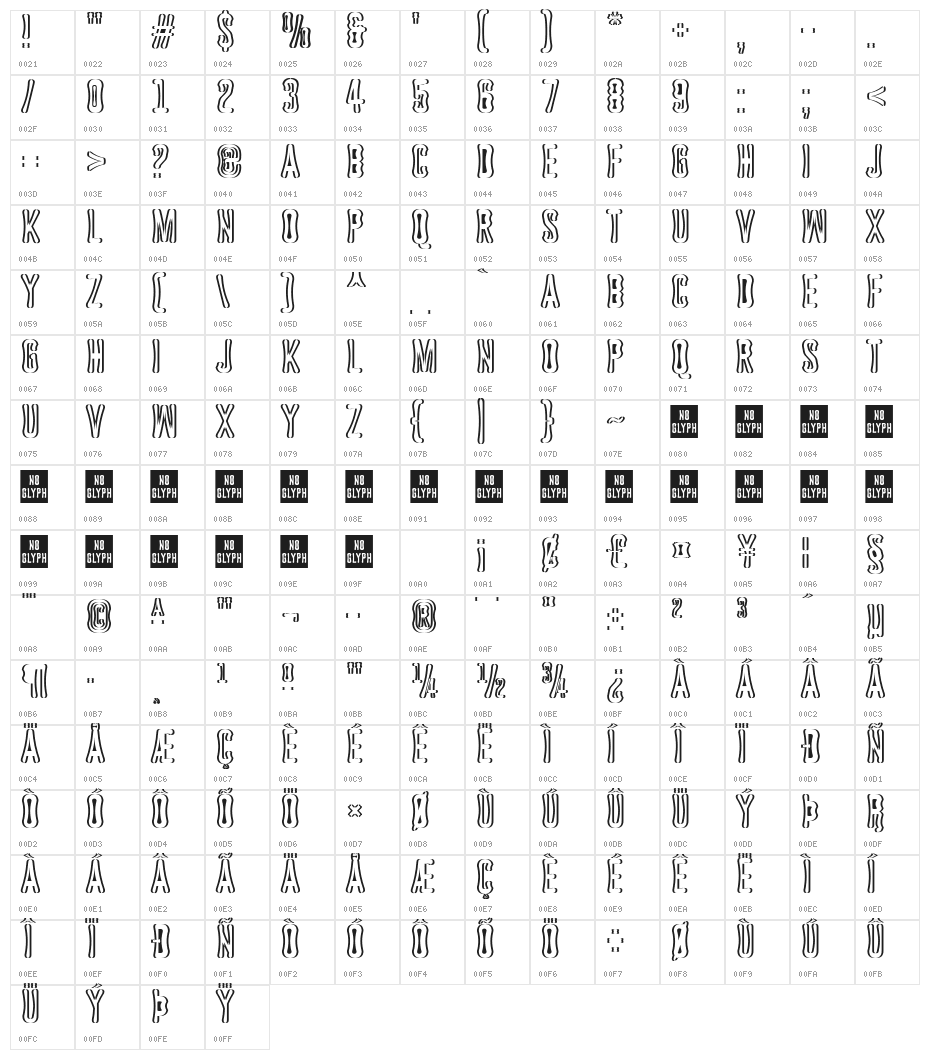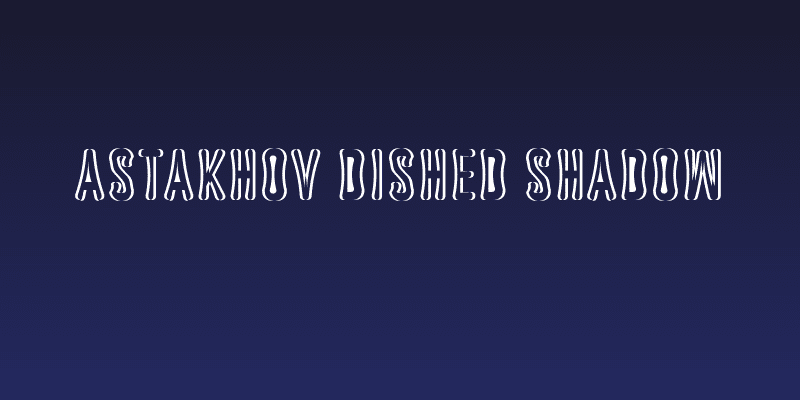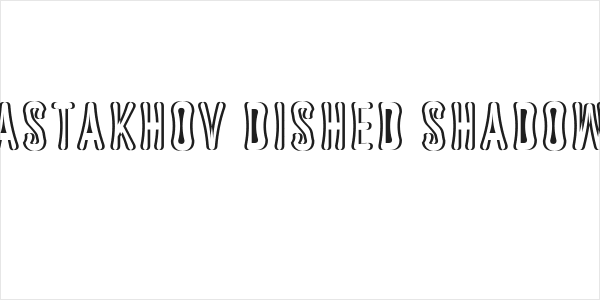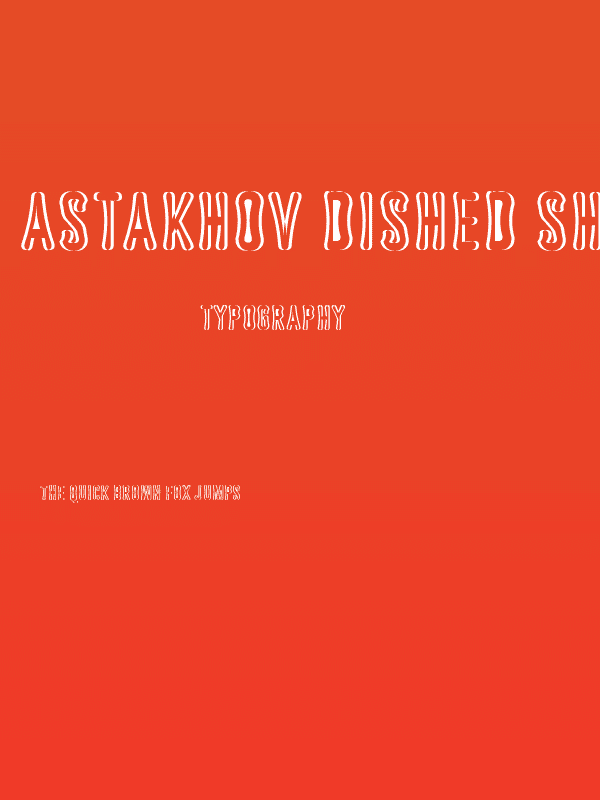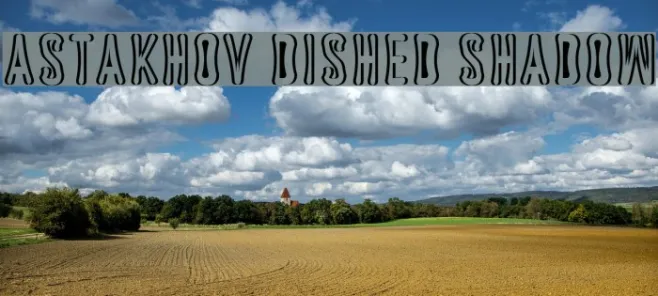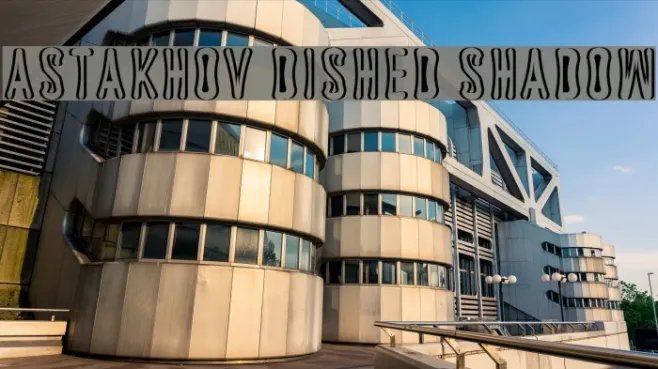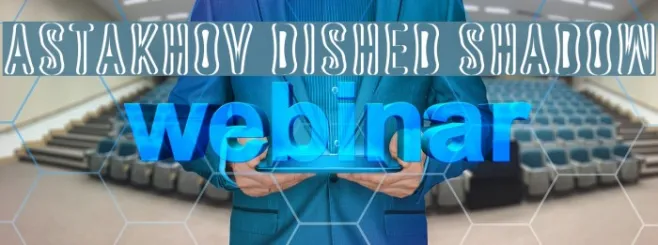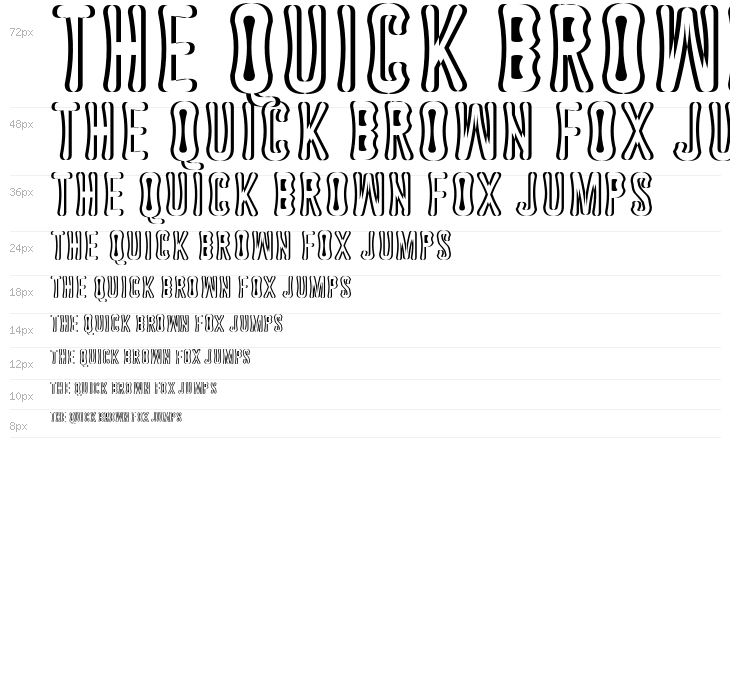
Astakhov Dished Shadow Font
Astakhov Dished Shadow Description
This font features a unique shadow effect that gives each character a three-dimensional appearance. The letters are bold and have a distinct outline that enhances their visibility and impact. The style is playful yet sophisticated, making it suitable for a variety of creative projects. The uppercase and lowercase letters maintain a consistent design, with numerals and special characters following the same aesthetic. The shadow effect adds depth, making the font stand out in any design context.